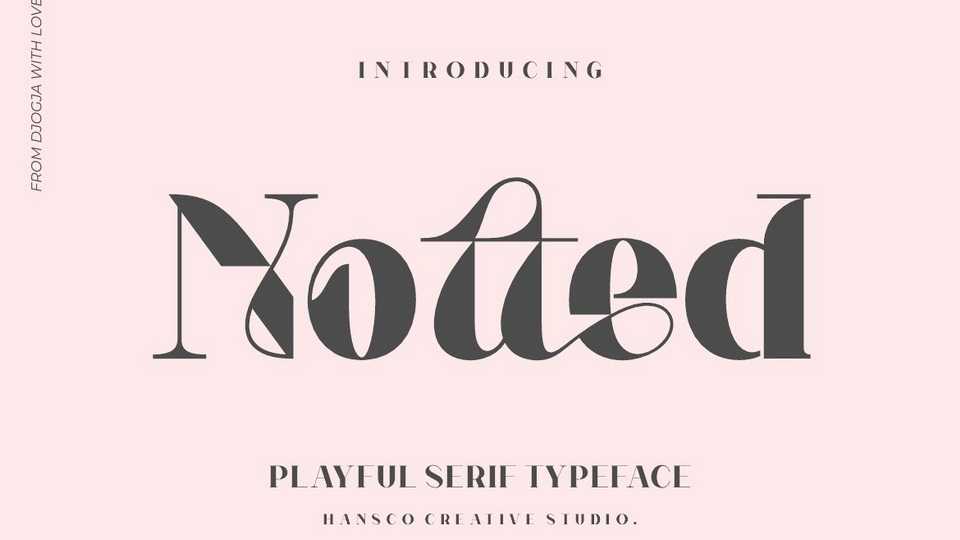
Download Notted font, a unique and playful serif typeface that had that sophisticated feel. Notted font is perfectly into those classy moodboards and logos.